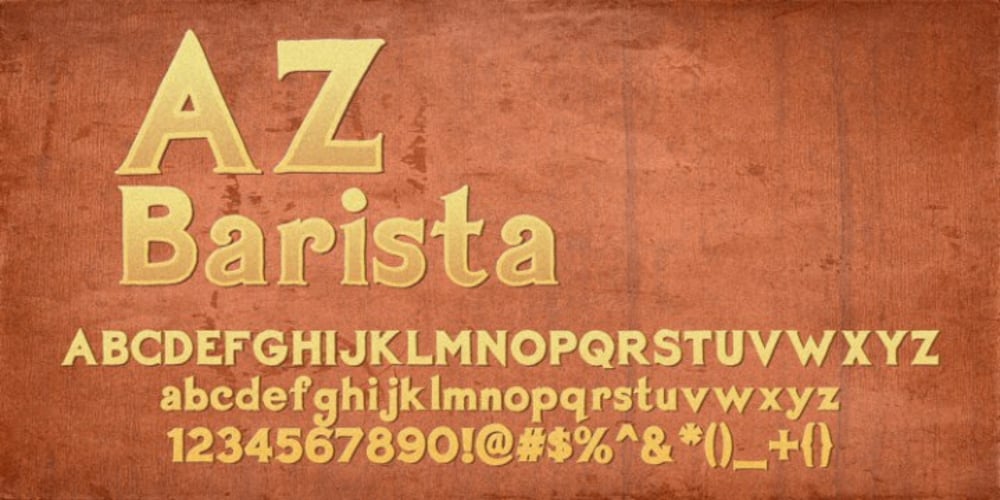
AZ Barista
AZ Barista font
AZ Barista Font Family was designed by published by Artist of Design. AZ Barista contains 1 styles and family package options. AZ Barista font is inspired from 1920’s Poster art, namely Leonetto Cappiello designs. This font was designed for use as a worn and antiqued headline.